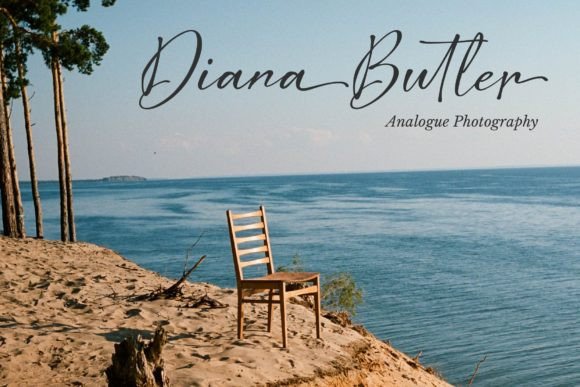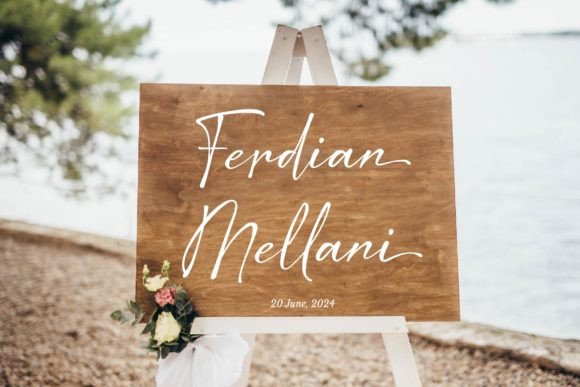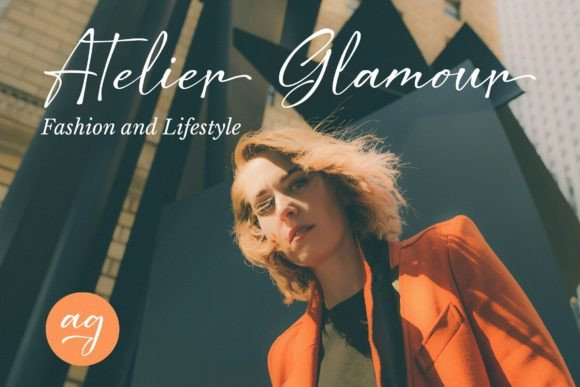
Introduction to Latifah Cigarillos Font
Have you ever been working on a design project, pouring your heart and soul into it, only to feel like something’s missing? Maybe you’re crafting a wedding invitation, creating a birthday card, or developing a brand identity, and you just can’t seem to find the perfect font to bring it all together. That’s where Latifah Cigarillos Font comes in – a stunning, elegant handwritten script font that’s sure to elevate your design to the next level.
As a valuable resource for designers, Latifah Cigarillos Font offers a high-quality design solution that’s both versatile and sophisticated. With its smooth, flowing lines, this font is perfect for adding a personal touch to any creative project, whether you’re working on a free download or a paid commission.
One of the standout features of Latifah Cigarillos Font is its transparent background, making it easy to overlay onto any design element or use as a standalone text element. Whether you’re a seasoned pro or just starting out, this font is sure to become a trusted design resource in your toolkit.
Key Features of Latifah Cigarillos Font
- Unique, elegant script font with a transparent background, ideal for adding a touch of sophistication.
- Includes a range of glyphs and characters, making it suitable for various languages and applications.
- Designed specifically for use in digital projects, including web design, graphic design, and digital art.
Honest Review: Latifah Cigarillos Font
I recently had the chance to work with Latifah Cigarillos Font, and I must say it’s been an interesting experience. As a designer, I’m always on the lookout for high-quality design resources to elevate my creative projects. Latifah Cigarillos Font is a free download, which was a major plus for me.
One thing that stands out about this font is its unique and stylish aesthetic. It’s perfect for projects that require a touch of sophistication and elegance. I particularly appreciate the transparent background, which allows for seamless integration into any design. ✨
Here are some pros and cons I’ve noticed:
- ✨ Unique and stylish aesthetic
- ✨ Transparent background for easy integration
- Supports a wide range of languages
- ⚠️ Limited character set, which may be a problem for complex texts
- ⚠️ Not ideal for large blocks of text, as it can be difficult to read
Overall, I’m impressed with Latifah Cigarillos Font. It’s a great addition to any designer’s toolkit, especially for creative projects that require a touch of sophistication. With a little creative planning, this font can really shine.
Tips for Getting the Most Out of Latifah Cigarillos Font
To get the most out of the Latifah Cigarillos Font, experiment with different font sizes, colors, and styles to create unique and visually appealing designs. Use the font’s transparent background feature to create graphics with a clean and minimalist look. Consider combining the font with other design elements, such as images and shapes, to create a cohesive and engaging design.
The Latifah Cigarillos Font is ideal for a variety of creative projects, including: